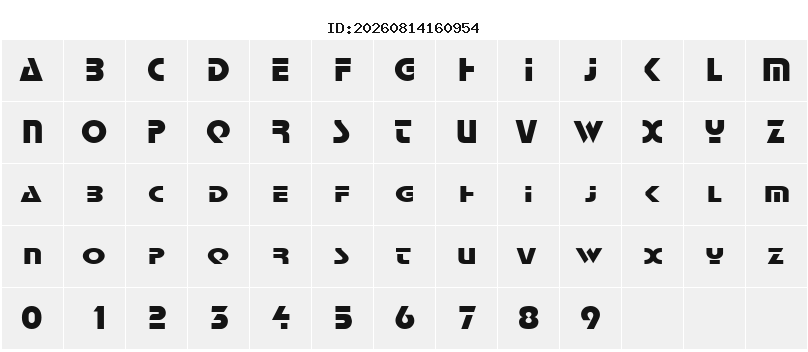
• Font Name: StopRegular
• Full Font Name: StopRegular
About StopRegular.ttf
StopRegular.ttf is a modern, elegant sans-serif font designed for ultimate readability and visual harmony. Perfect for branding, headlines, web design, and print materials.